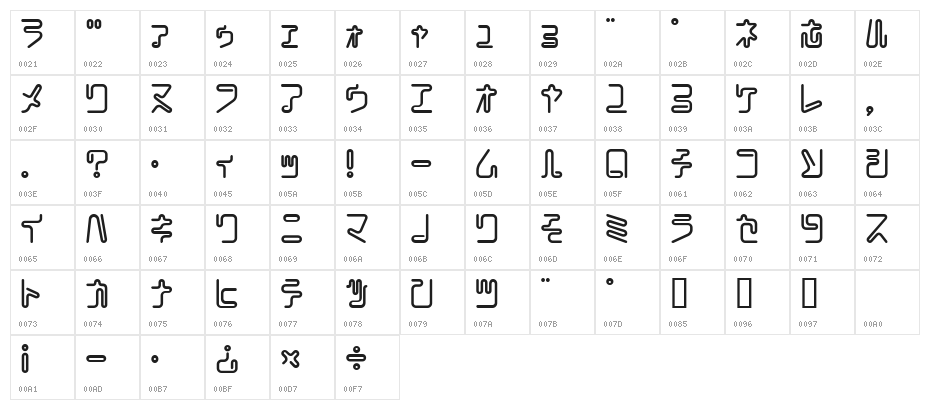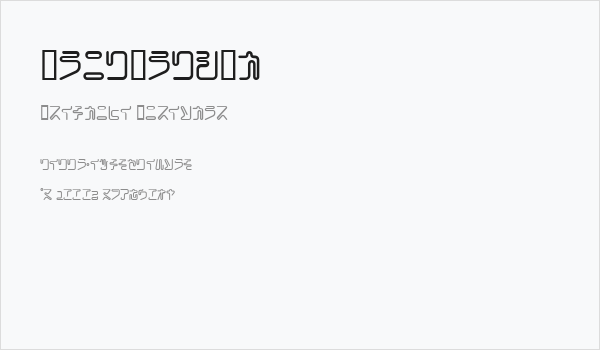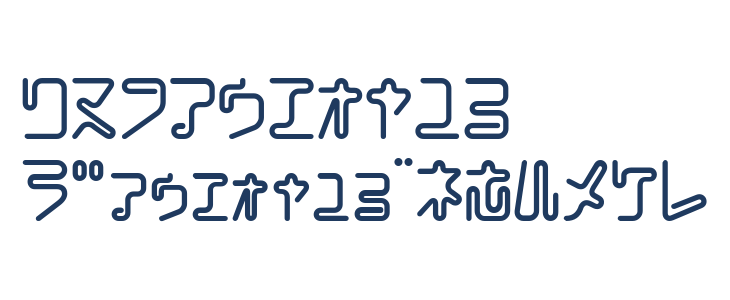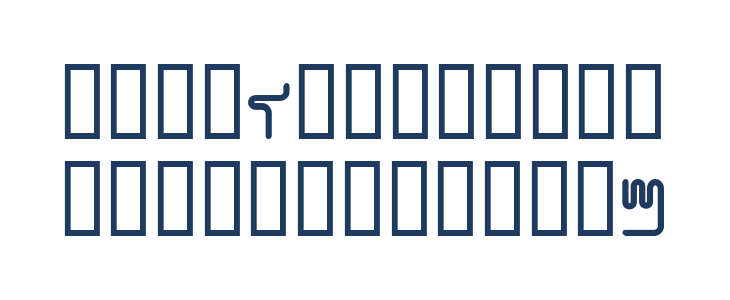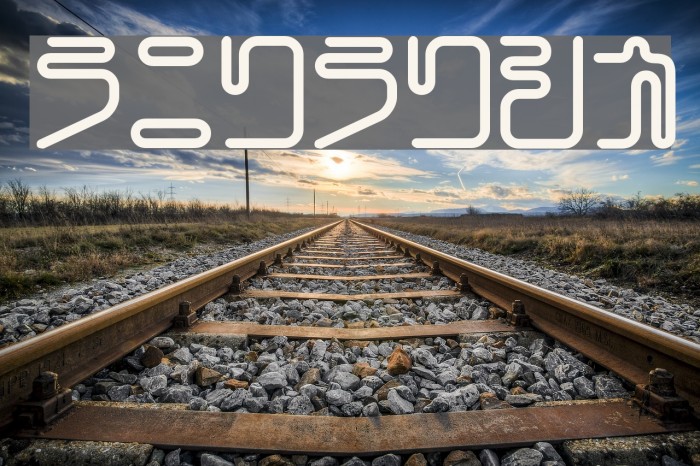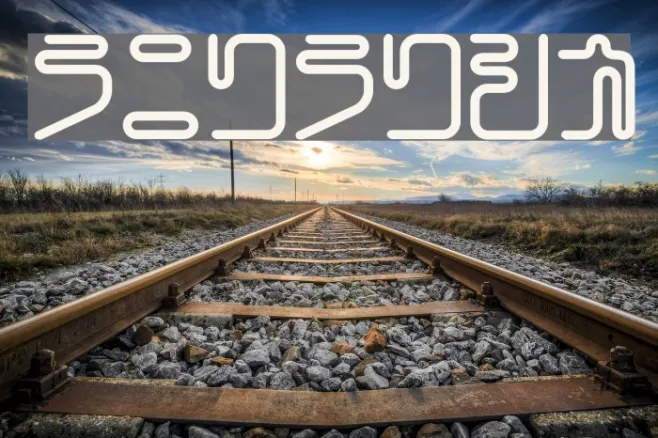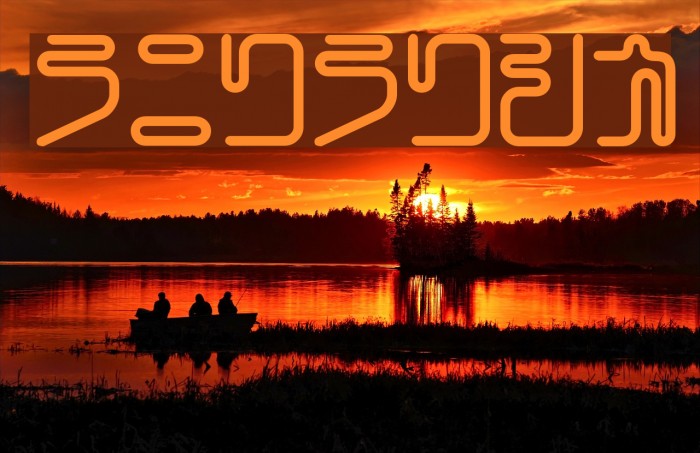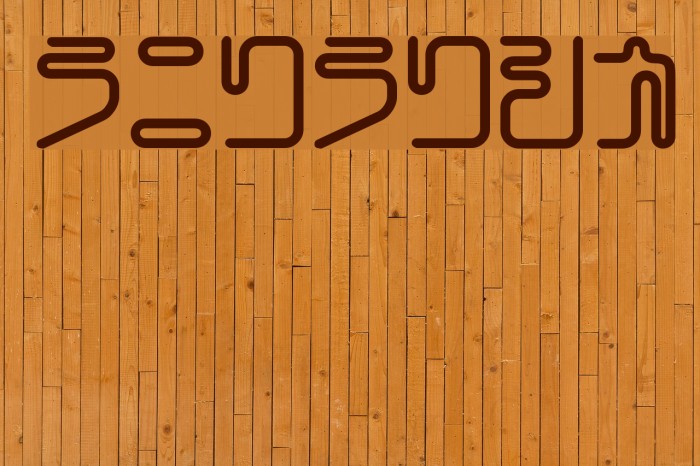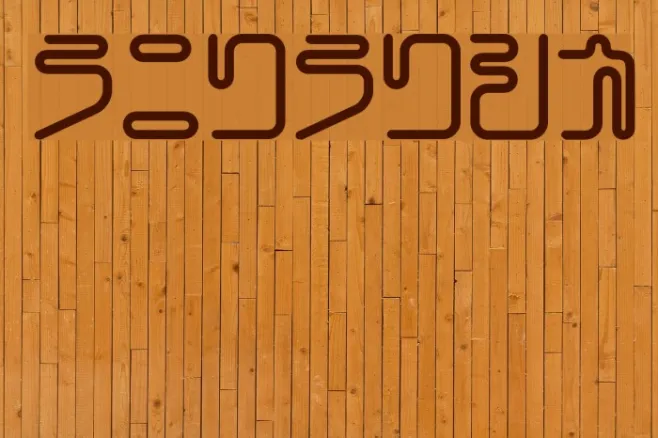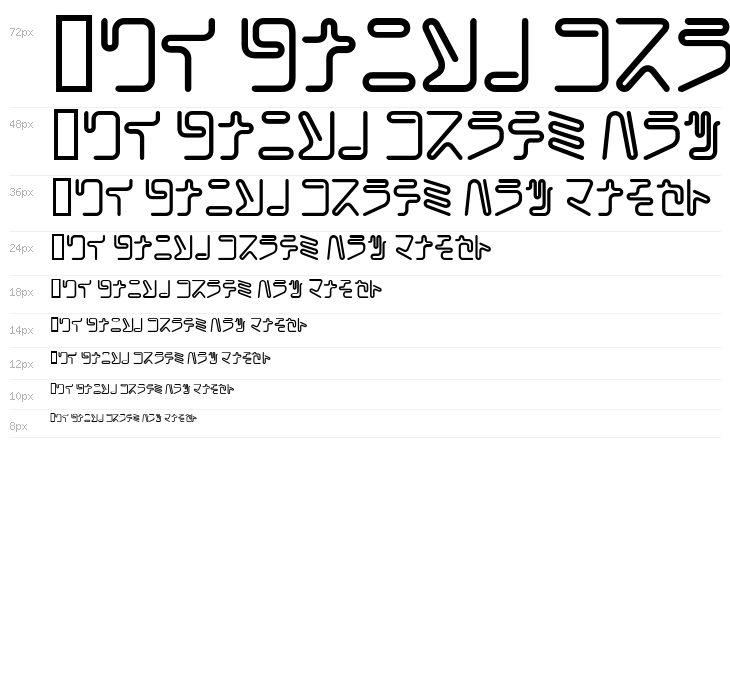
CoilBoldKt Font
CoilBoldKt Description
This font features a unique, futuristic design with a hollow, tubular appearance. Each character is crafted with a consistent line weight, creating a cohesive and modern aesthetic. The letters are rounded and smooth, giving a sense of fluidity and movement. The geometric shapes are bold and striking, making it ideal for attention-grabbing designs. The font maintains a uniform width across all characters, ensuring a balanced and harmonious look. Its distinctive style is both playful and sophisticated, suitable for creative and contemporary projects.